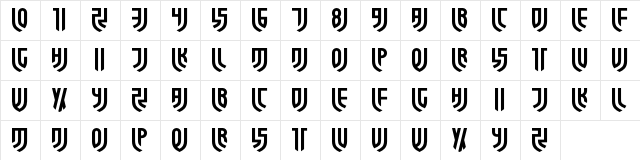
Forza Juve Regular
| Designer | Kassymkulov Zhalgas |
Design Context for Forza Juve Typeface
Forza Juve is a composed and adaptable typeface that performs quietly and consistently across a wide range of design contexts.